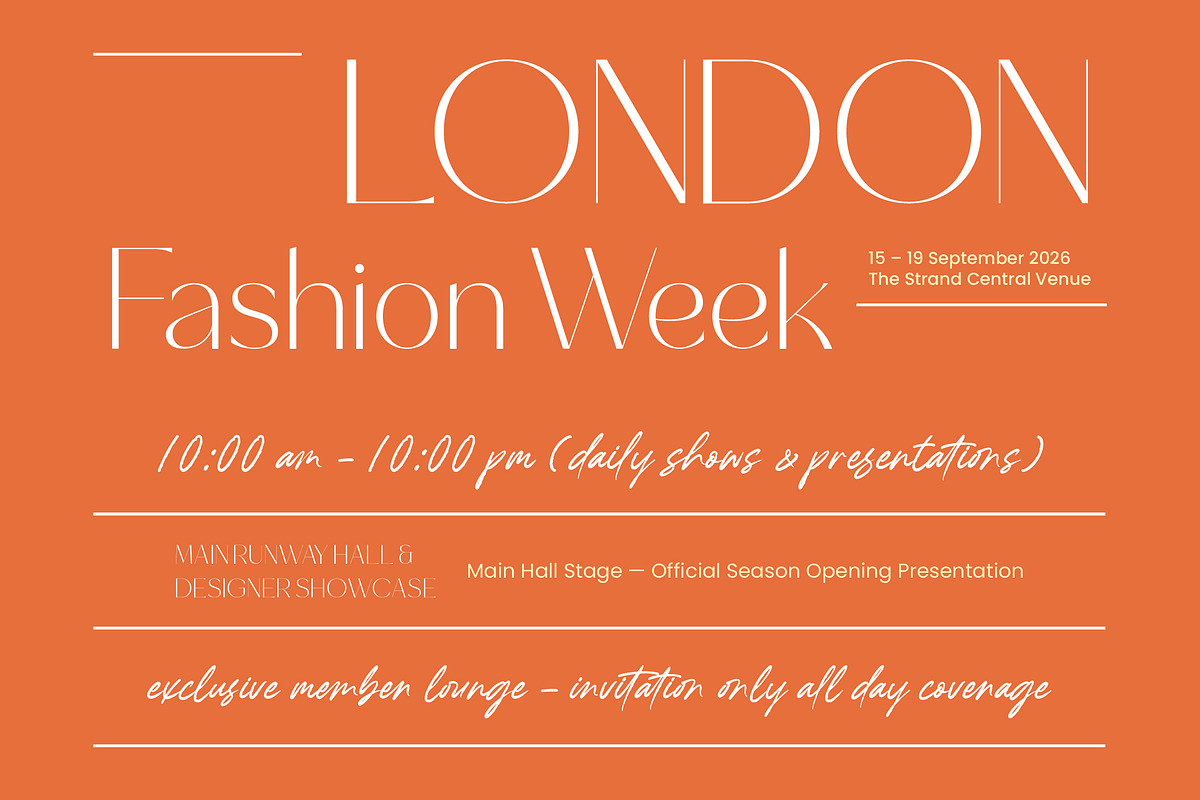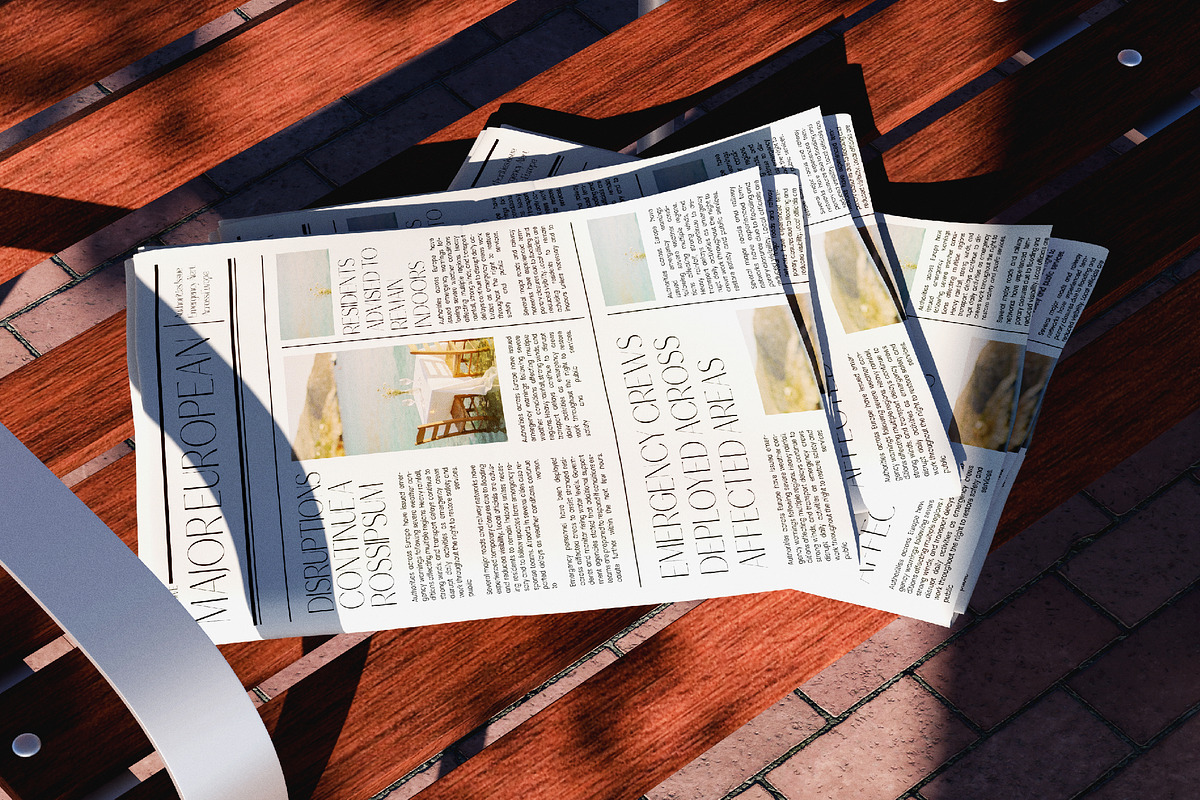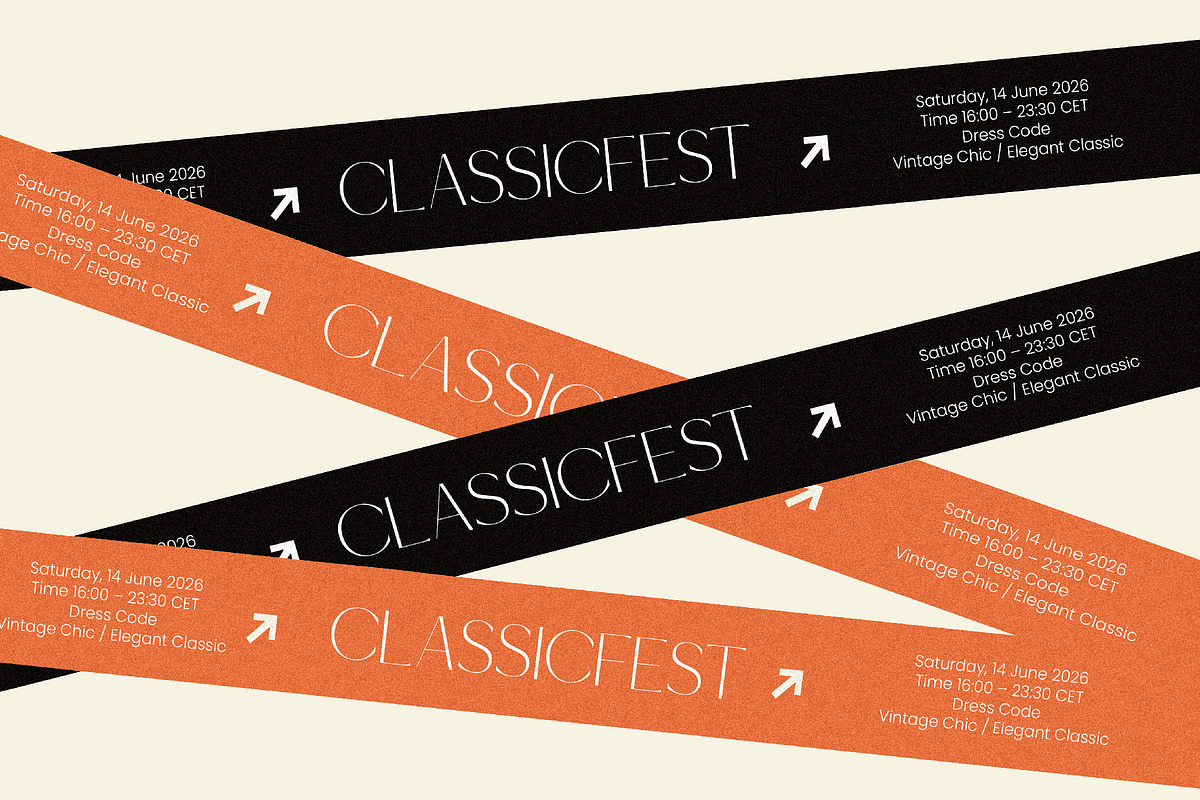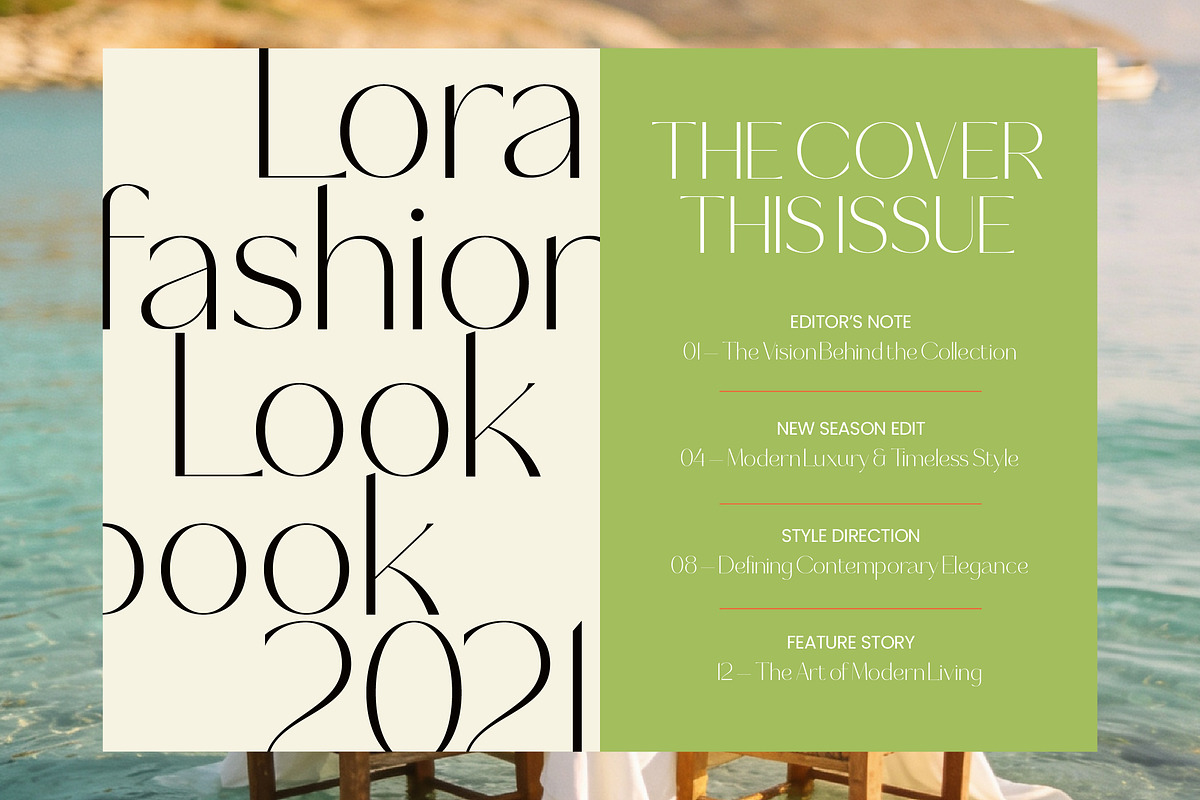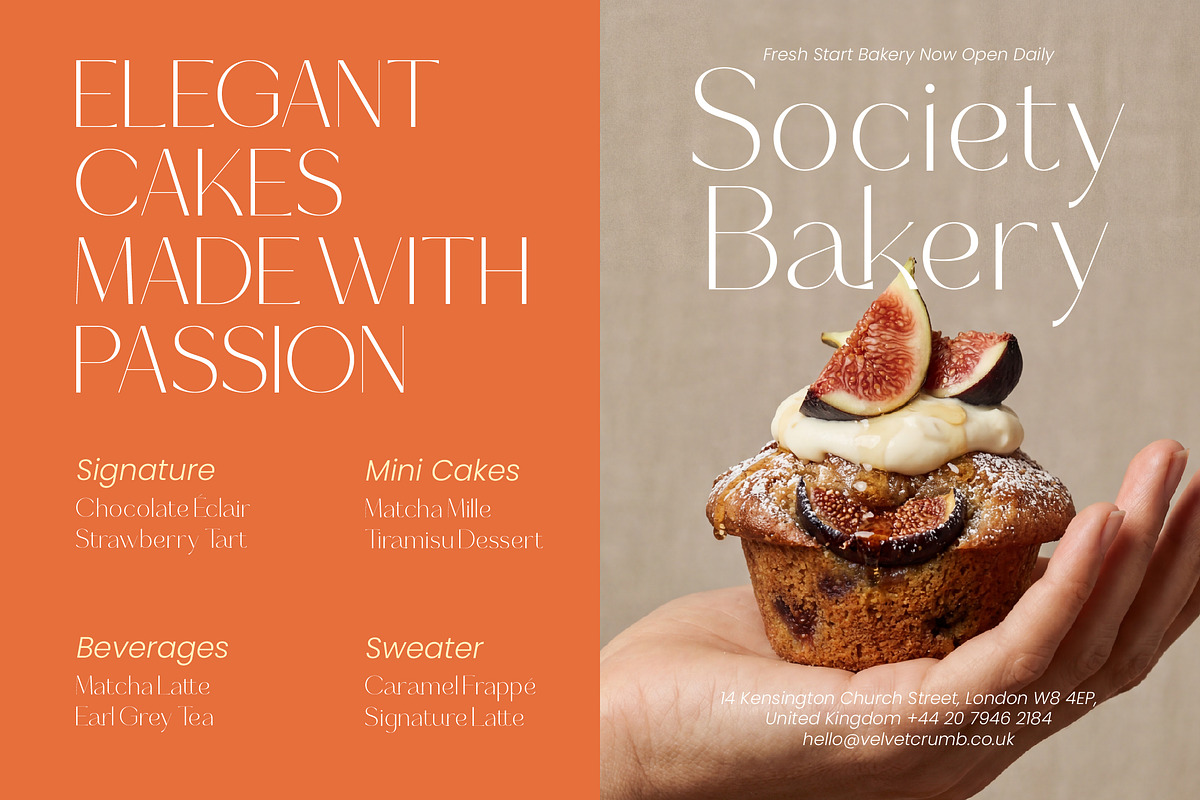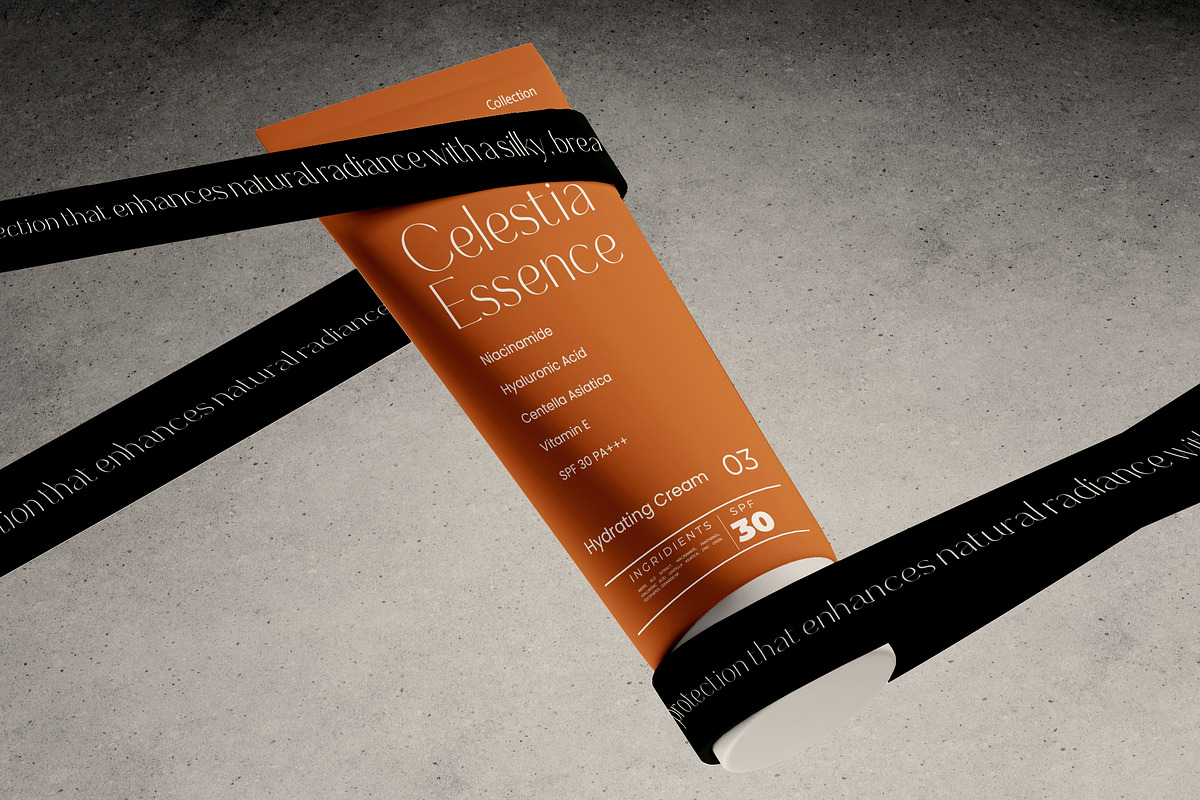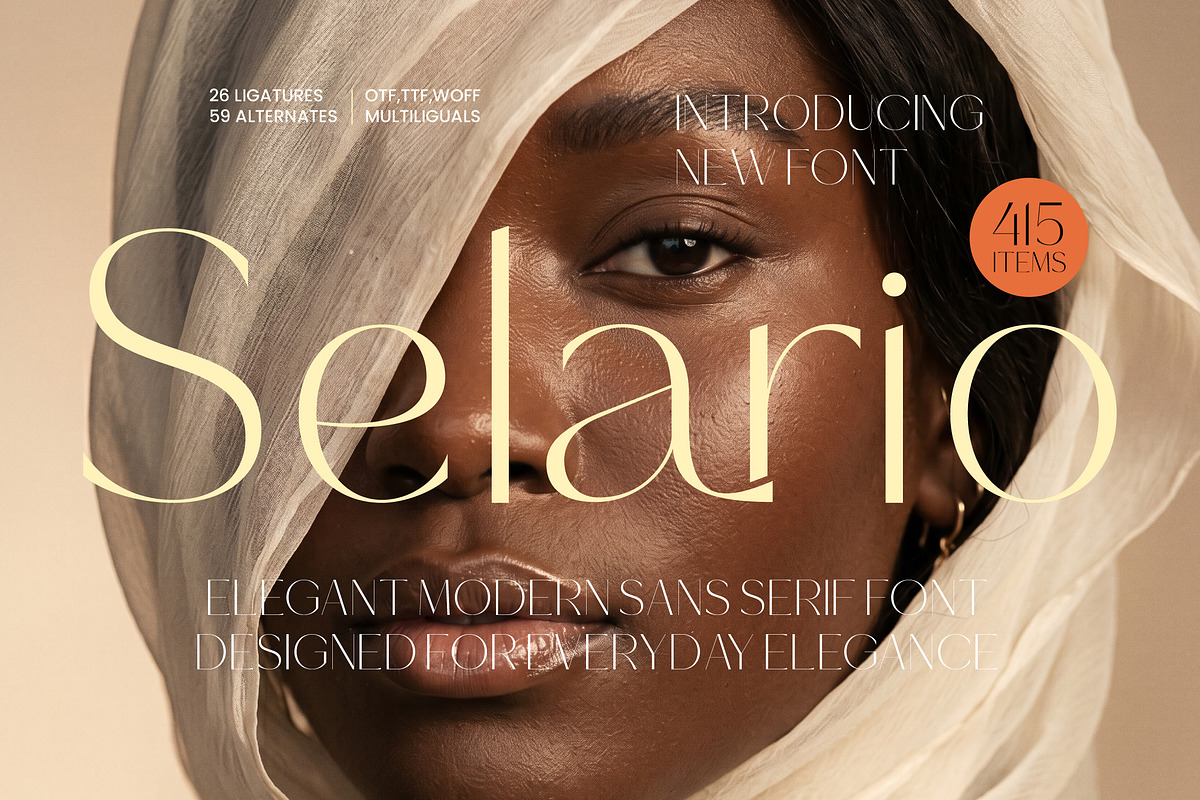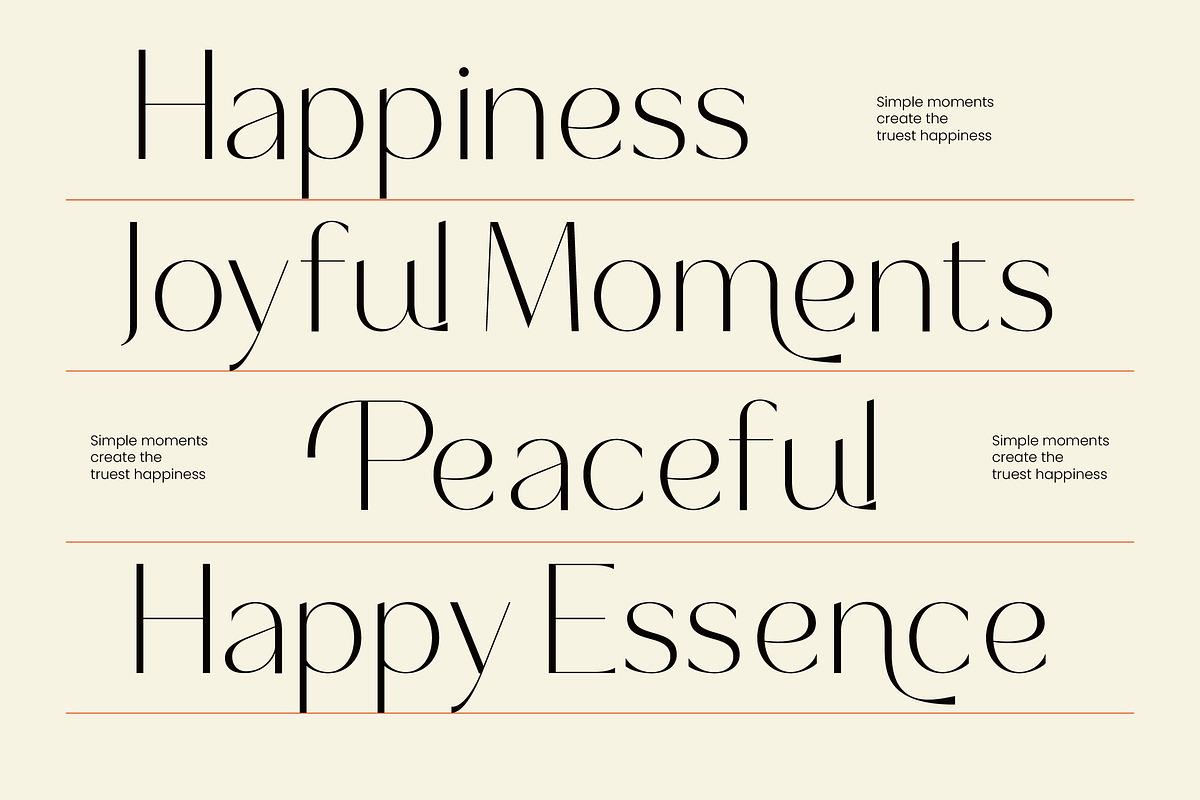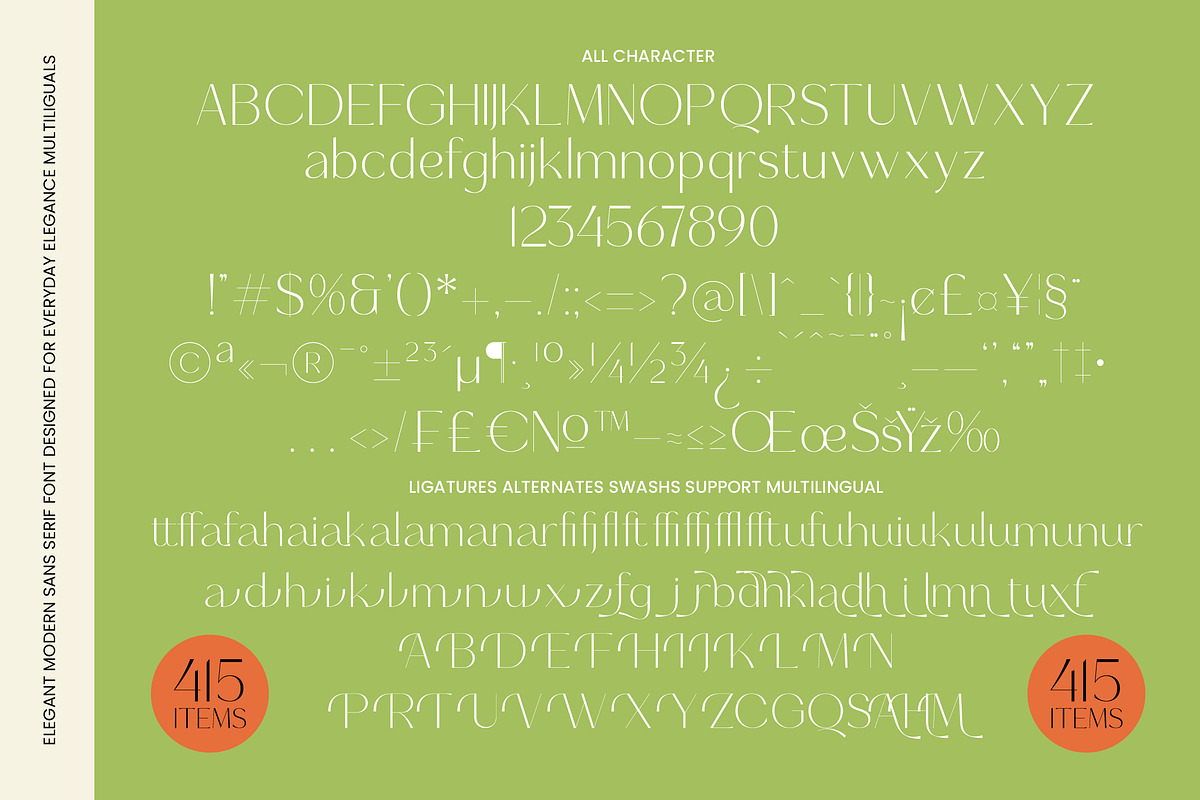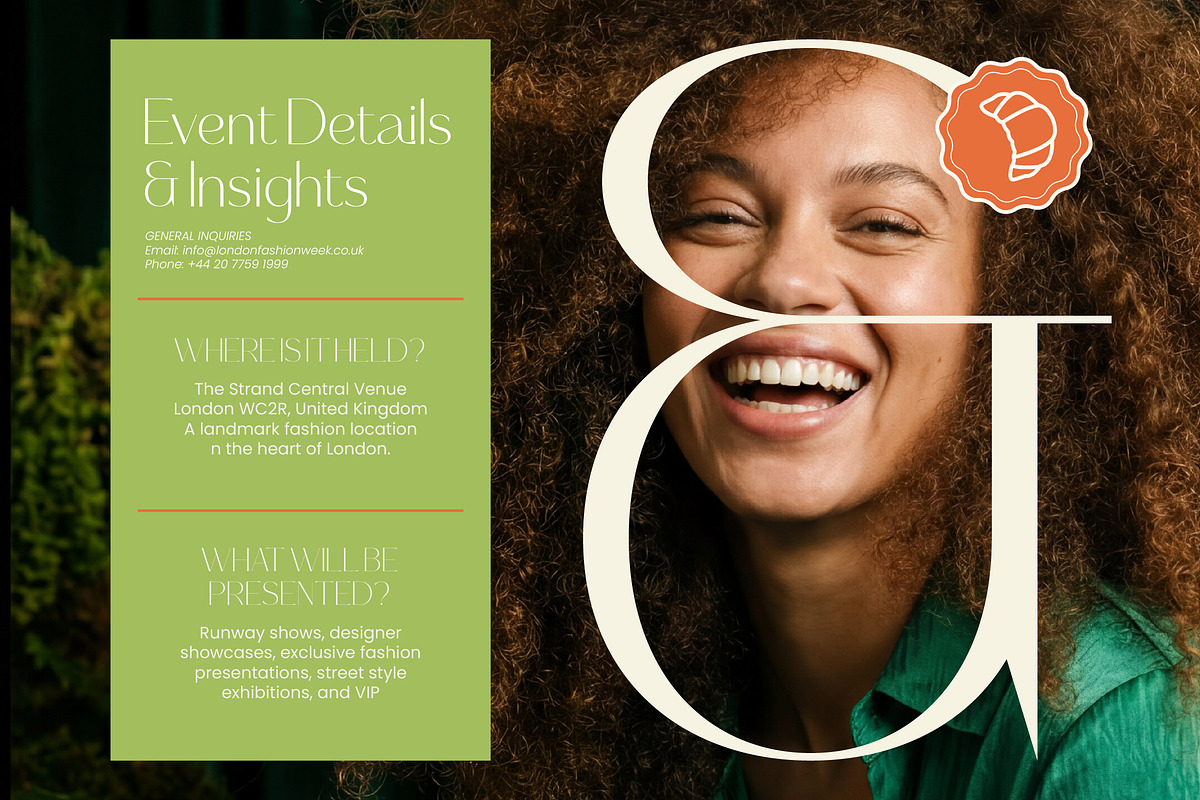
Selario Elegant Modern Sans Serif
Selario – Elegant Modern Sans Serif , Embody the essence of contemporary high-fashion with Selario – Elegant Modern Sans Serif, a typeface that redefines modern minimalism through its striking high-contrast letterforms. This font is meticulously crafted to offer a sophisticated visual balance, blending sleek verticality with fluid curves to capture an aura of understated luxury. Whether used for bold headlines or delicate accents, Selario – Elegant Modern Sans Serif ensures your typography remains both timeless and trendsetting.
Unlock a world of premium design possibilities as Selario – Elegant Modern Sans Serif serves as the perfect cornerstone for luxury branding and high-end editorial projects. Its elegant proportions make it ideal for cosmetic packaging, fashion boutique logos, and lifestyle magazine layouts where visual prestige is paramount. Designers will find that Selario – Elegant Modern Sans Serif excels in high-visibility applications, providing a polished and professional finish that commands attention in any commercial environment.
Scale your creative vision across the globe effortlessly with a typeface built for international excellence and diverse communication needs. With its extensive multilingual support, Selario – Elegant Modern Sans Serif adapts seamlessly across global markets, making it incredibly versatile for international projects. By offering a comprehensive set of characters, Selario – Elegant Modern Sans Serif ensures that your brand message remains consistent and impactful regardless of the linguistic landscape.
Master the art of customized typography using the extensive library of 415 glyphs, including 26 ligatures and 59 alternates that offer endless stylistic variety. Available in OTF, TTF, and WOFF formats, Selario – Elegant Modern Sans Serif is a versatile design asset that integrates flawlessly into any digital or print workflow. Investing in Selario – Elegant Modern Sans Serif means choosing a professional-grade toolkit that empowers you to create distinctive, high-impact designs that stand out in a crowded marketplace.